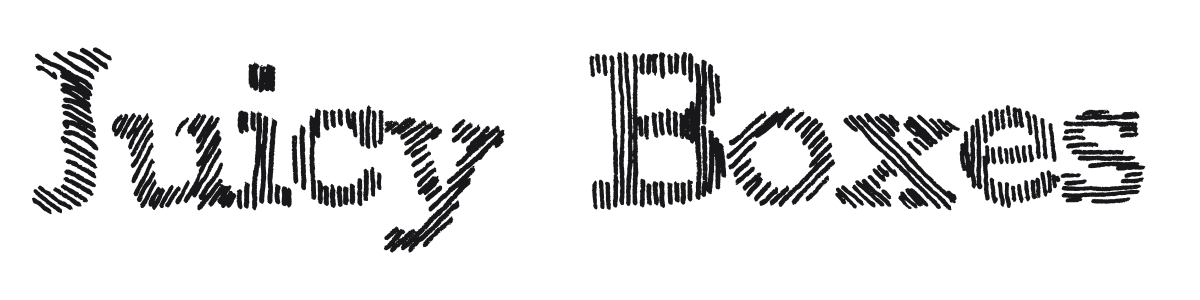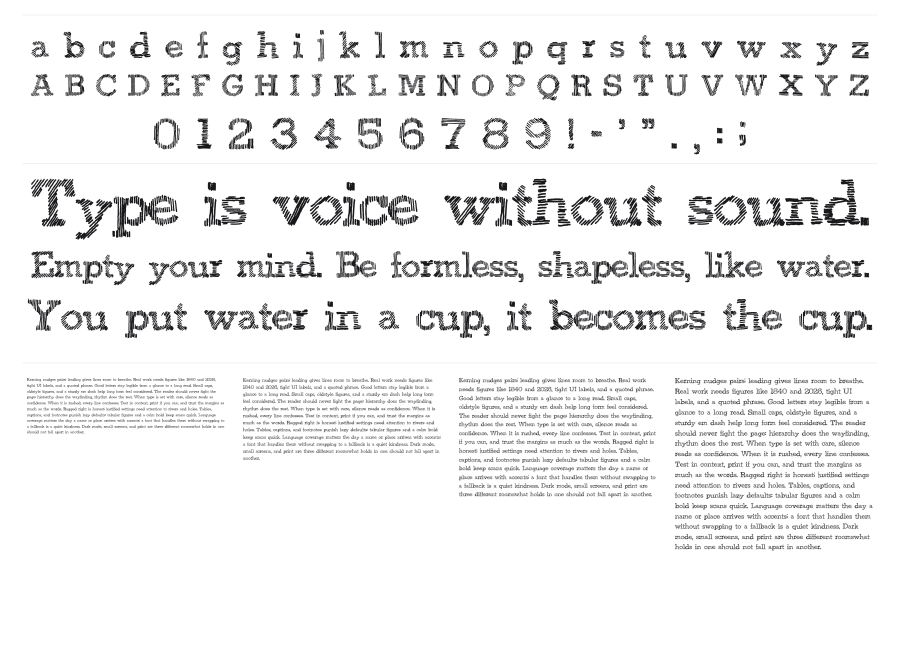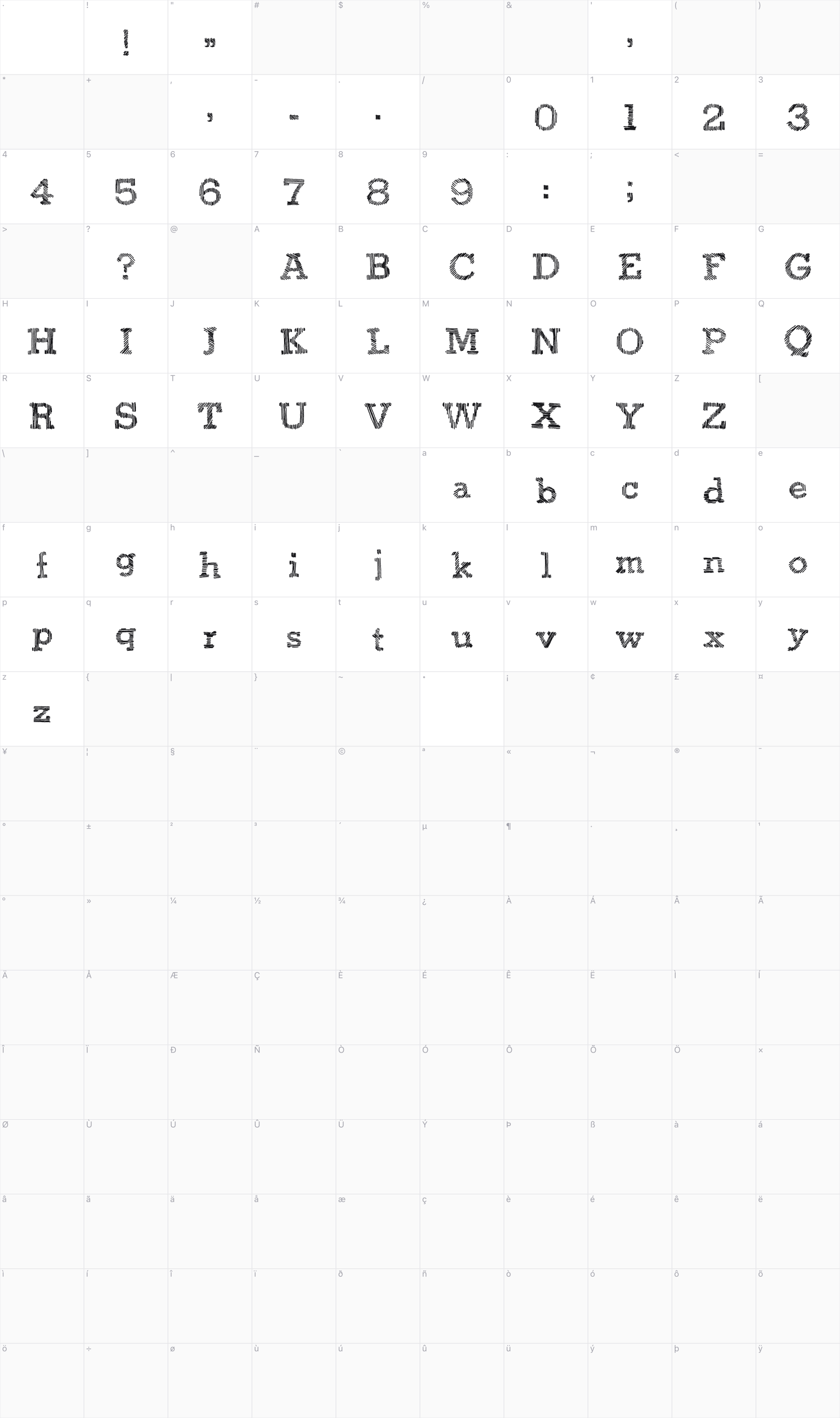
Juicy Boxes
Juicy Boxes is a distressed slab-serif packed with dense horizontal hatching that makes every stroke look like it was dragged through a worn ink screen. The underlying structure is chunky and approachable, but the texture overwhelms fine detail, so this one lives at large sizes. It carries the raw, hand-processed energy of a zine or overprinted concert poster.